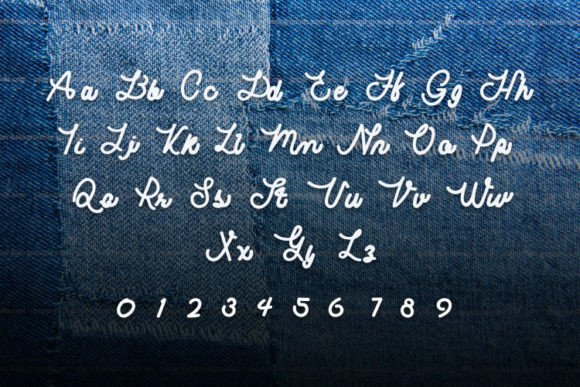
Introducing Elastic Line Font: Elevate Your Designs with a Cool and Unique Handwritten Style
Are you tired of using the same old fonts in your designs? Look no further than Elastic Line Font, a cool and unique handwritten font that’s sure to take your creations to the next level. With its neat craftsmanship and high level of detail, Elastic Line Font is the perfect addition to any font library.
What Makes Elastic Line Font So Special?
Elastic Line Font is a highly versatile font that can be used for a wide range of design projects. Whether you’re working on a logo, a poster, a website, or any other type of design, this font is sure to make a statement. Its unique handwritten style gives it a personal and approachable feel that’s perfect for designers who want to add a touch of warmth and personality to their work.
One of the standout features of Elastic Line Font is its high level of detail. The font is carefully crafted to ensure that every letter and symbol is precise and elegant. This attention to detail makes Elastic Line Font perfect for use in designs where you want to make a strong impression, such as in logos, headings, and titles.
The Benefits of Using Elastic Line Font
So why should you choose Elastic Line Font for your next design project? Here are just a few benefits of using this amazing font:
- Unique and eye-catching: Elastic Line Font is a one-of-a-kind font that’s sure to grab attention. Its unique handwritten style sets it apart from more traditional fonts and makes it perfect for designers who want to stand out from the crowd.
- Highly versatile: Elastic Line Font can be used for a wide range of design projects, from logos and posters to websites and social media graphics.
- Elegant and sophisticated: Despite its playful, handwritten style, Elastic Line Font is also surprisingly elegant and sophisticated. This makes it perfect for use in designs where you want to convey a sense of professionalism and style.
- Easy to read: Despite its unique style, Elastic Line Font is also highly legible. This makes it perfect for use in designs where you need to communicate a message clearly and effectively.
How to Use Elastic Line Font in Your Designs
So how can you start using Elastic Line Font in your designs? Here are a few tips to get you started:
- Use it as a headline font: Elastic Line Font is perfect for use in headlines and titles, where its unique style can really make a statement.
- Pair it with other fonts: Elastic Line Font also pairs well with other fonts, which can help to create a visually interesting and dynamic design.
- Experiment with different colors: Elastic Line Font looks great in a wide range of colors, so don’t be afraid to experiment and find the perfect shade to match your brand or design.
In conclusion, Elastic Line Font is a cool and unique handwritten font that’s sure to elevate your designs to the next level. With its neat craftsmanship, high level of detail, and highly versatile style, this font is perfect for designers who want to add a touch of personality and style to their work. Whether you’re working on a logo, a poster, a website, or any other type of design, Elastic Line Font is a wonderful asset to have in your font library.